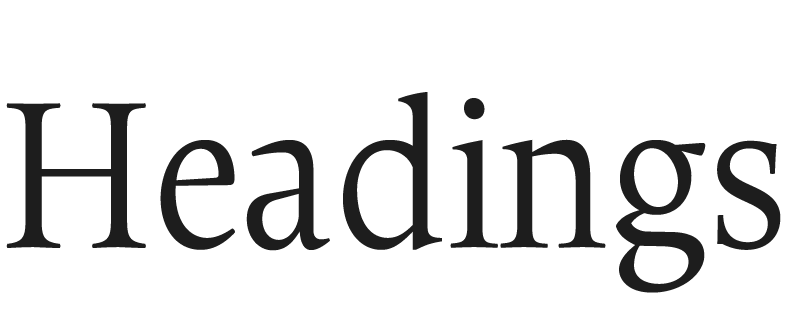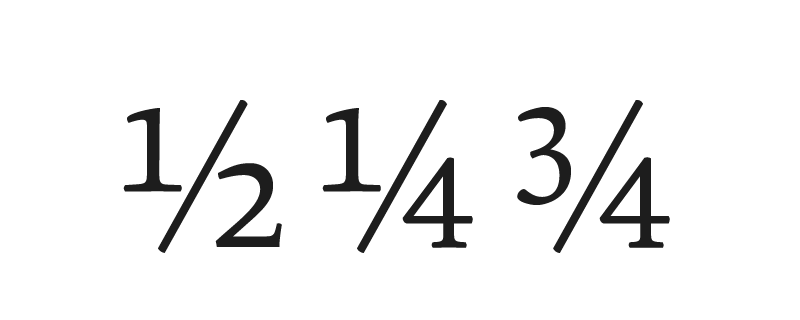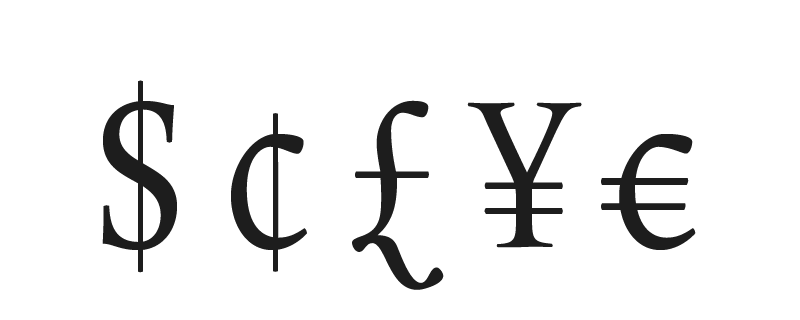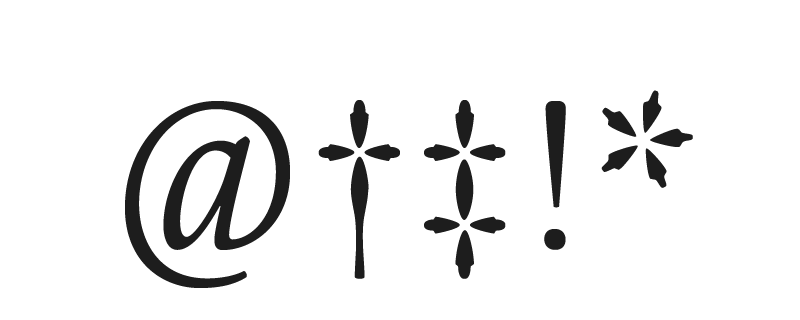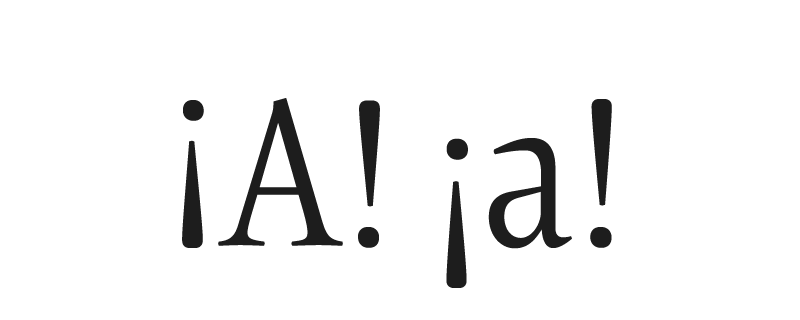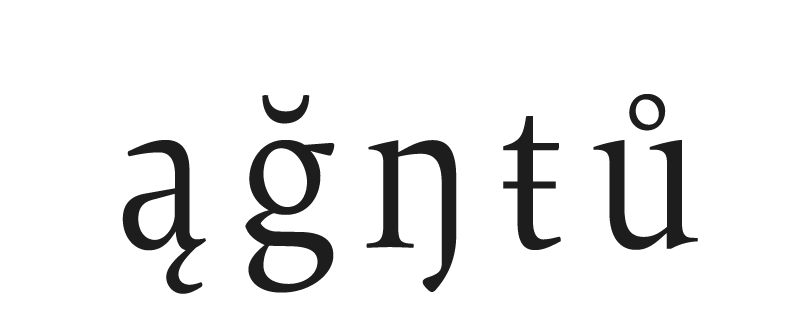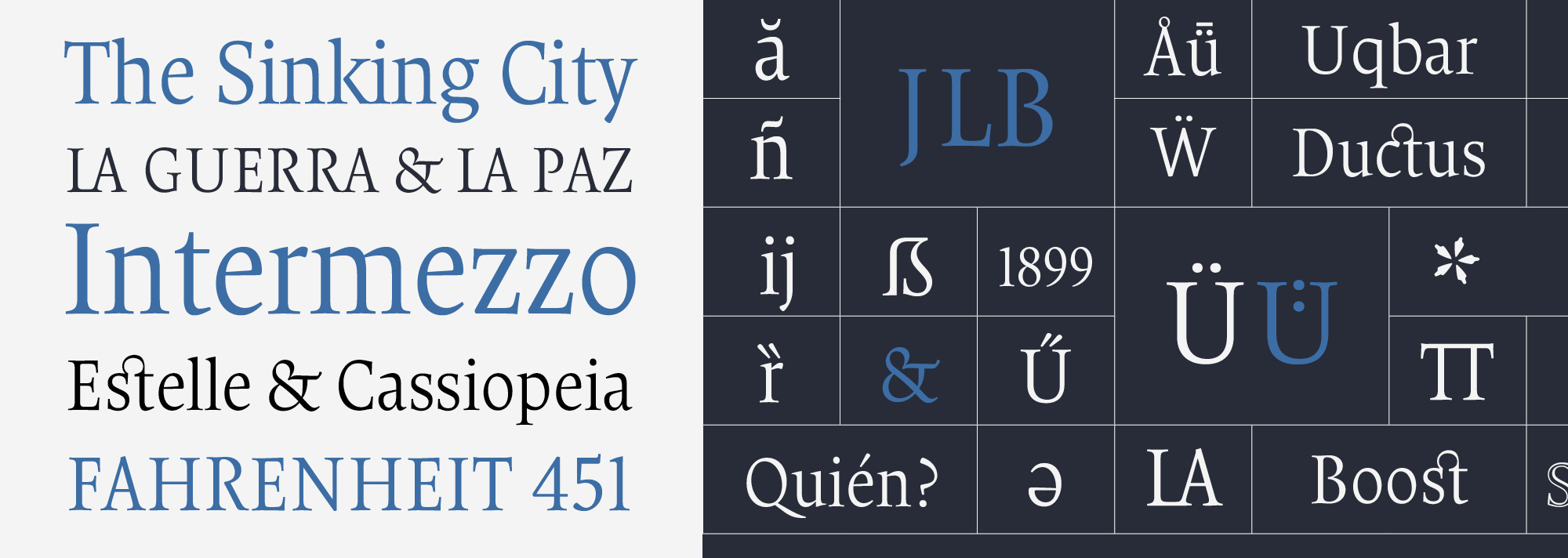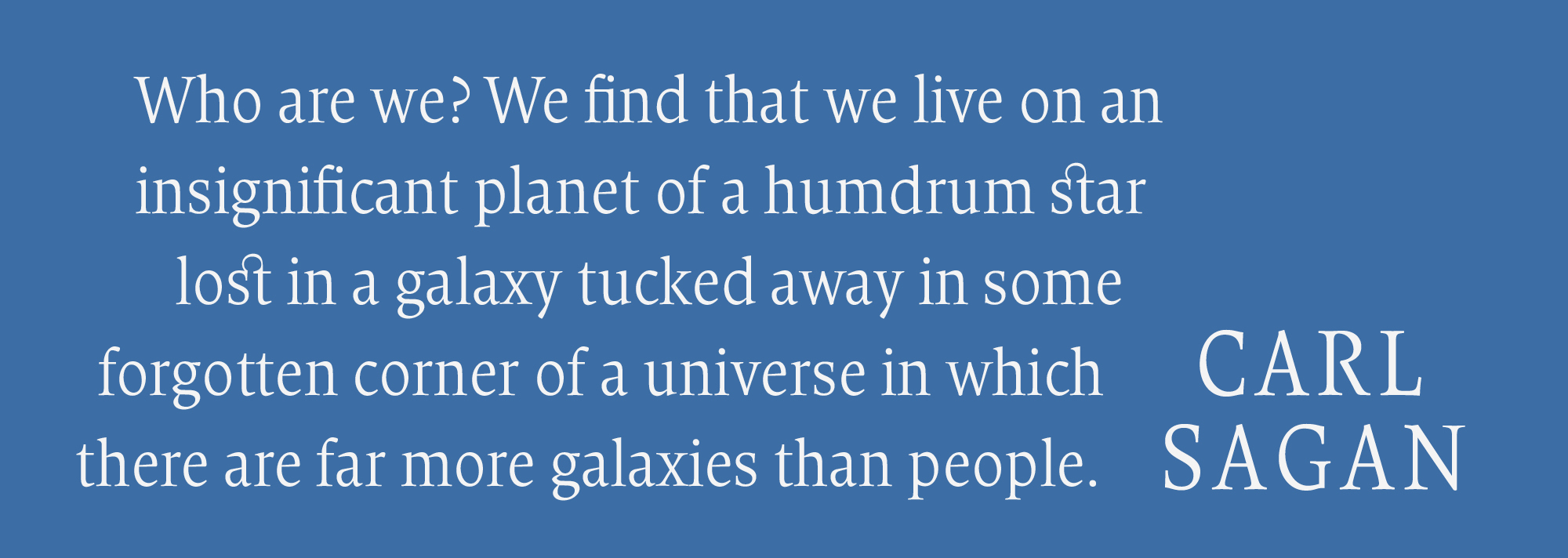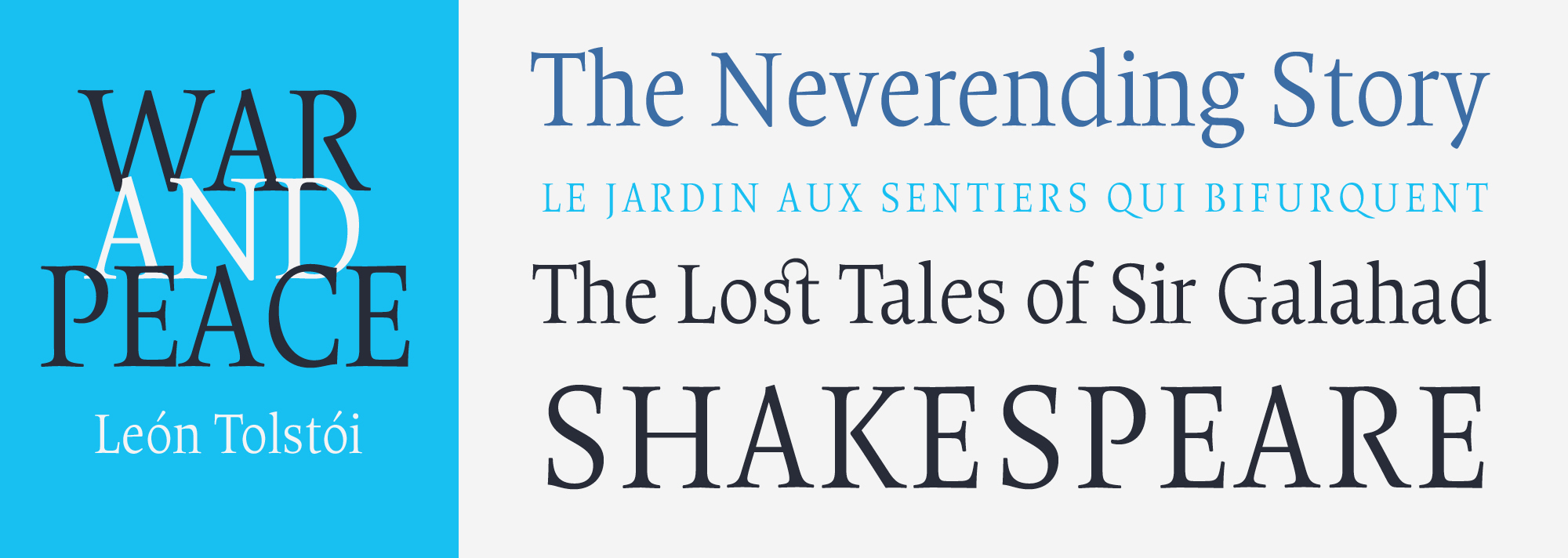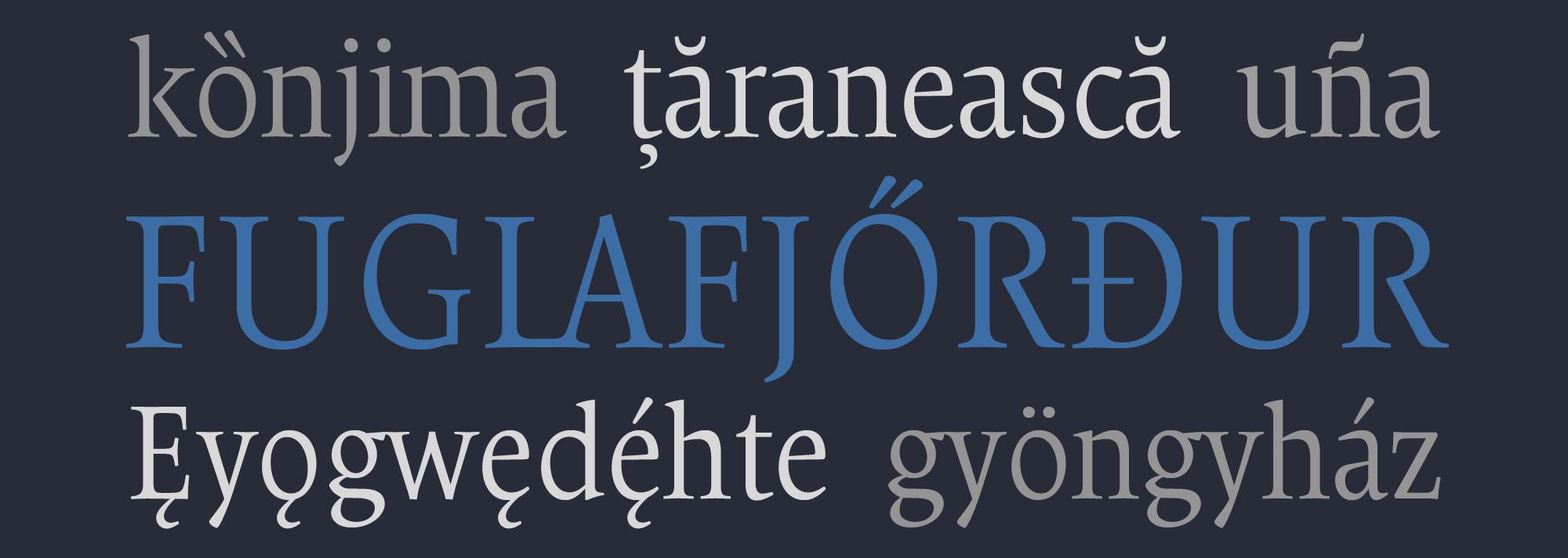
The titling version of Borges
Specially conceived for a bookish atmosphere, Borges Titling is a delicately spirited roman that goes nicely together with the Borges text versions. With more economical vertical proportions than the text version, it has a slightly more accentuated stroke contrast, its serifs are slightly more elongated and its overall appearance is more delicate. The Borges type family pays homage to the fantastic work of writer Jorge Luis Borges. His writing technique, that of a meticulous and tireless goldsmith, in relentless pursuit of the perfect word, suggested a clean, economical but elegant letterform.
Borges Titling
Designed by Alejandro Lo Celso.
Characteristics
Features & Specials
headings perfect fit
Extended Latin
standard ligatures
discretionary ligatures
special cap ligatures
alt german umlaut
german eszett
language local forms
lining figures
basic fractions
basic money signs
standard punctuation
case sensitive forms